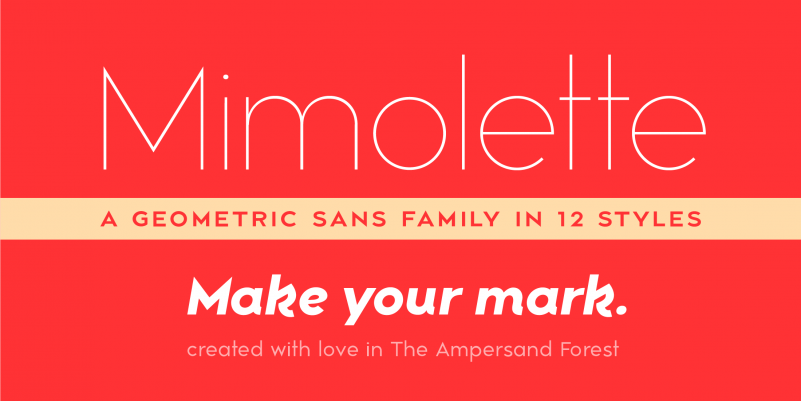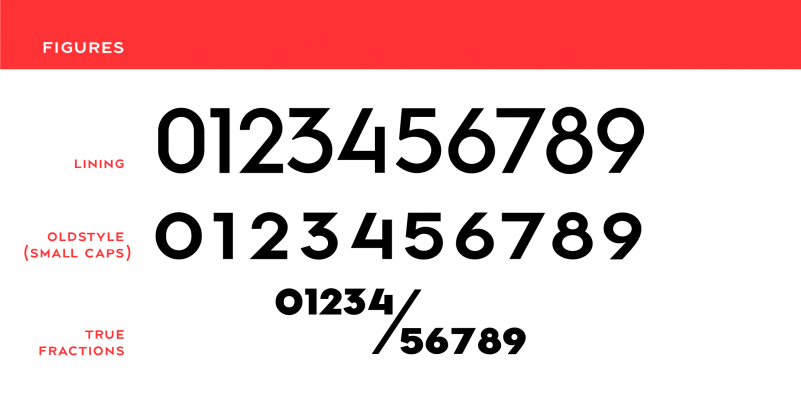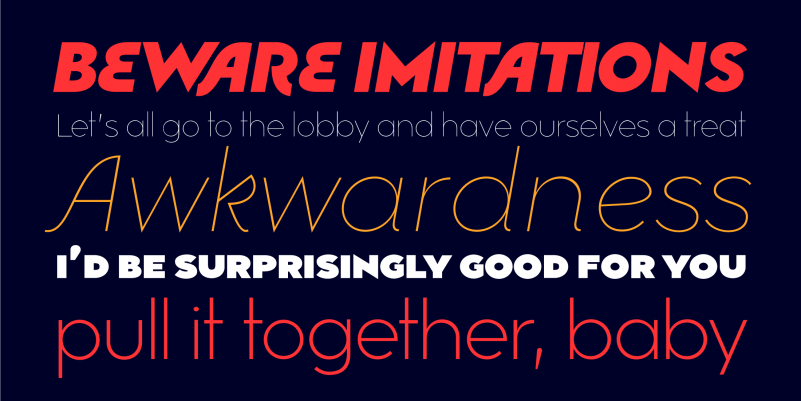
Mimolette Font Family
Every designer has a favorite geometric sans serif. For a century, they’ve been a staple for text that needs to be clear, strong, architectural, and objective. Mimolette offers a sans serif family that’s great for text and display alike—the panache of Neutraface, the readability of Avenir, the sleekness of Avant Garde, the strength of Mark, the architecture of Gotham, and the classic lines of Futura—but she’s entirely her own creature, and she’s designed to offer maximum versatility and beauty at an affordable price.